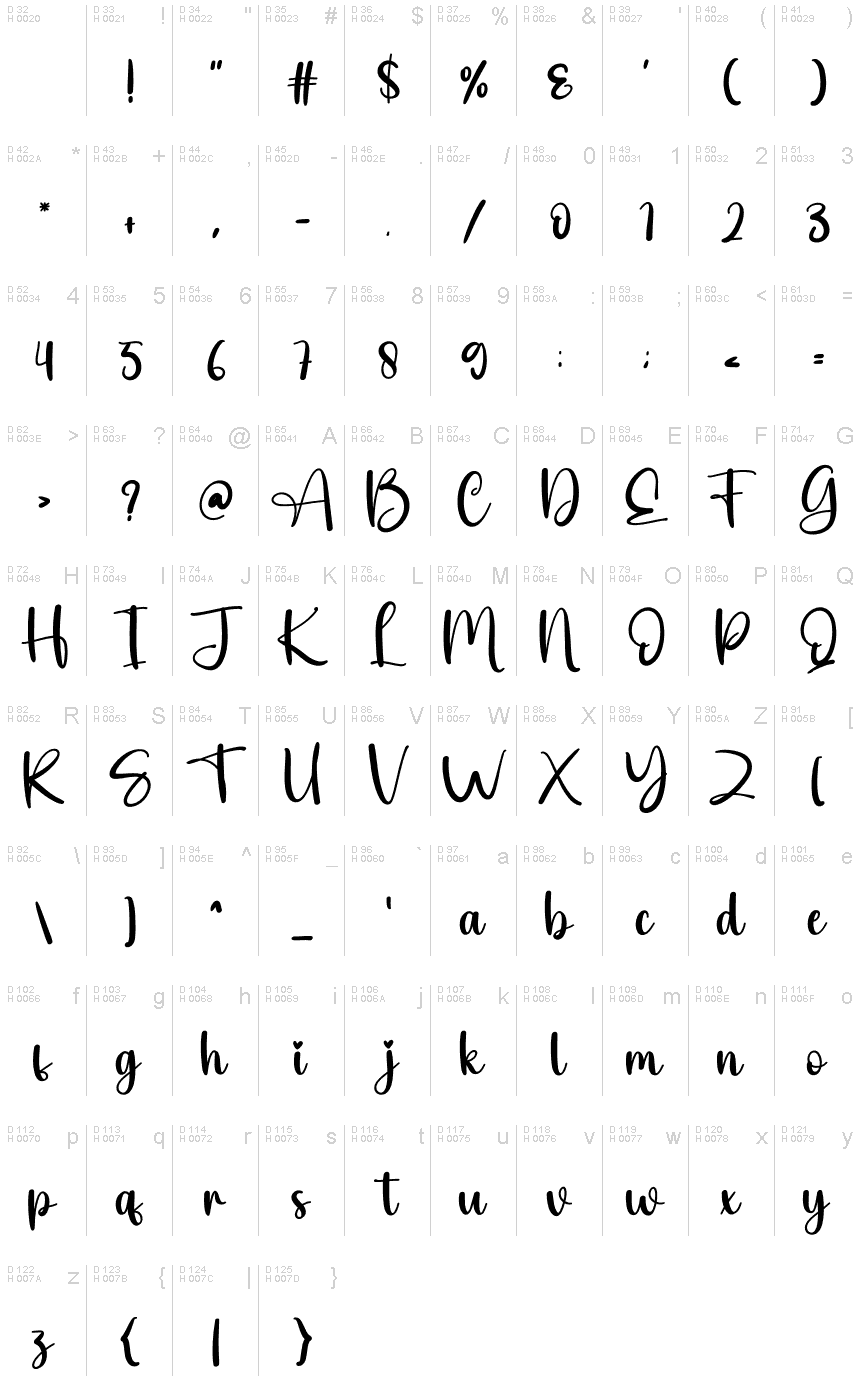
Gaffer
Gaffer, a delightful creation by Scratchones, presents a lovely handwritten font style that exudes warmth and charm.
With its graceful curves and gentle strokes, Gaffer is perfect for adding a touch of elegance to wedding invitations and stationery. Its versatility shines in children's book illustrations, bringing characters to life with its whimsical appeal. In branding projects, Gaffer's friendly demeanor enhances logos and packaging designs, captivating audiences instantly.